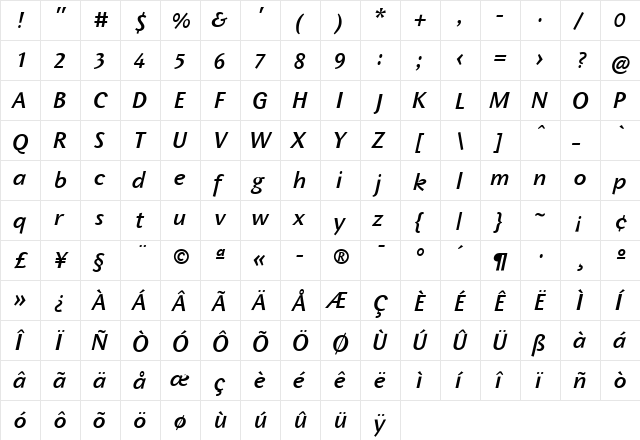
Wunderlich Medium Italic
Design Context for Wunderlich Typeface
Wunderlich offers clean, dependable letterforms without strong stylistic allegiance, making it a practical choice for designers who need flexibility. The slanted form adds forward momentum and visual energy.